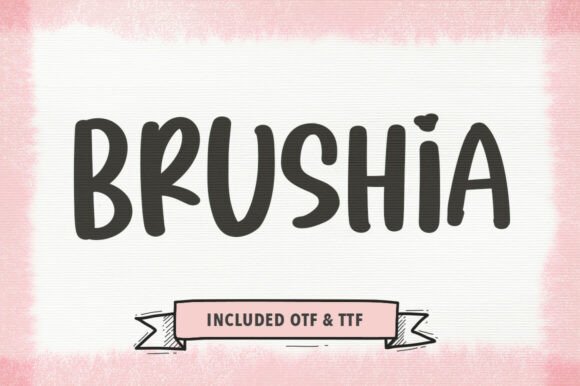
The Sweet Charm of Brushia Font: A Designer’s Delight
I still remember the time I was working on a Valentine’s Day project for a client, and I was on a mission to find the perfect font that would capture the sweet and playful vibe of the holiday. I had tried countless fonts, but none of them seemed to fit the bill. That was when I stumbled upon Brushia Font, and it instantly stole my heart! 💕
With its unique heart-shaped detail as a dot for the letter “i” and smooth, marker-like strokes, Brushia Font exudes a youthful and endearing character that’s perfect for a variety of design projects. In this article, I’ll share my experience with Brushia Font, its features, and how to make the most of it in your designs.
An Honest Review of Brushia Font
What I Love About Brushia Font ✨
- ✅ Unique heart-shaped detail for the letter “i” that adds a touch of whimsy to your designs
- ✅ Smooth, marker-like strokes that give it a hand-crafted feel
- ✅ Perfect for Valentine’s Day projects, children’s branding, and cute sticker designs
- ✅ Works well for maternal blogs, nursery wall art, and personalized gift packaging
- ⚠️ Limited font weights, which might not be suitable for projects that require a range of weights
- ⚠️ Some users might find the heart-shaped detail too playful for certain projects
The Backstory of Brushia Font
Brushia Font was designed with love and care by a talented type designer who wanted to create a font that would bring a smile to people’s faces. Inspired by the joy of creating something by hand, Brushia Font features smooth, marker-like strokes that give it a youthful and endearing character. The unique heart-shaped detail for the letter “i” adds a touch of whimsy and playfulness, making it perfect for projects that require a dash of sweetness.
Q: What is Brushia Font best used for?
A: Brushia Font is perfect for Valentine’s Day projects, children’s branding, cute sticker designs, maternal blogs, nursery wall art, and personalized gift packaging.
Q: Is Brushia Font available in different weights?
A: Brushia Font has limited font weights. You may need to use a font combination or explore other font options to achieve the desired visual effect.